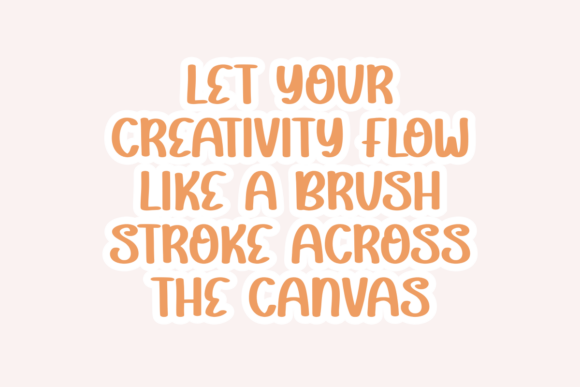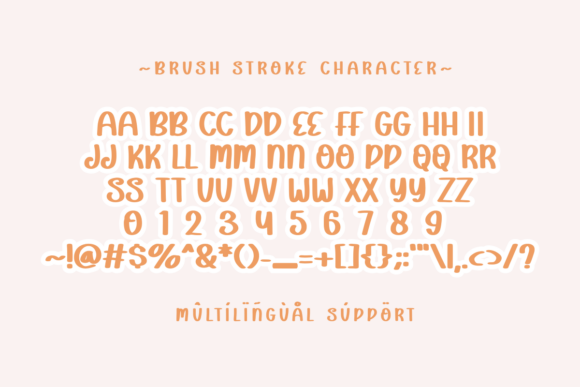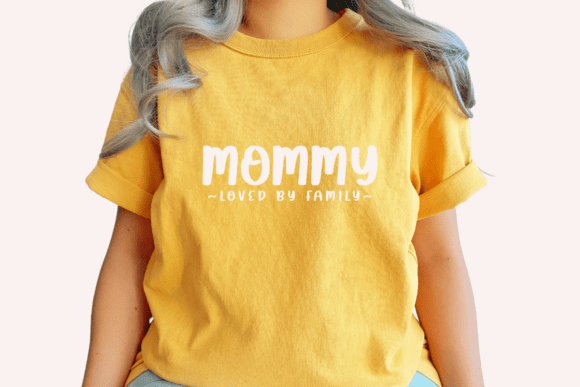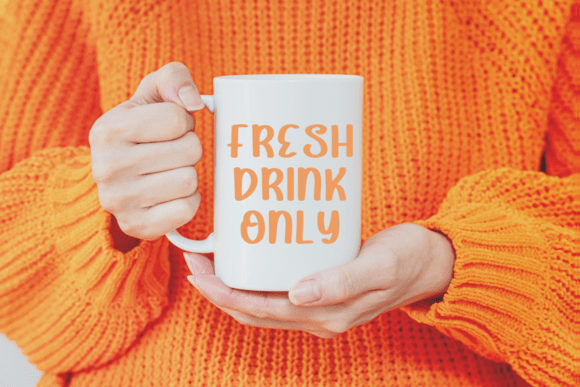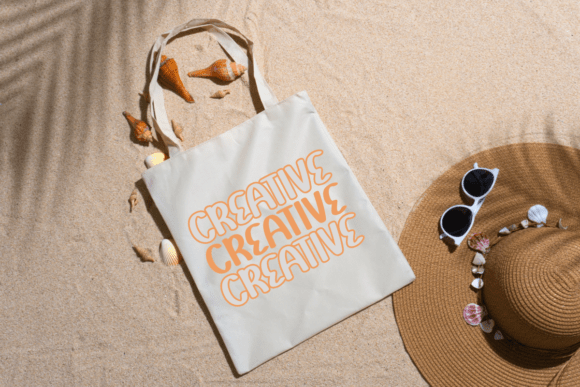
Introducing Brushstroke Font: The Perfect Blend of Whimsy and Elegance
Are you a designer or crafty enthusiast searching for a font that embodies the perfect balance of romance, playfulness, and sophistication? Look no further than Brushstroke Font! This charming handwriting font is designed to bring a touch of warmth and personality to your creative projects. With its smooth curves, clean lines, and hand-drawn feel, Brushstroke Font is ideal for a wide range of applications, from wedding invitations and heartfelt branding to elegant social media graphics and romantic designs.
The Characteristics of Brushstroke Font
So, what makes Brushstroke Font so unique? Here are just a few of its standout features:
- Smooth Curves: Brushstroke Font boasts smooth, flowing curves that give it a distinctly hand-drawn feel. This characteristic makes it perfect for creating elegant, sophisticated designs that still feel approachable and personal.
- Clean yet Whimsical: Despite its refined appearance, Brushstroke Font has a playful, whimsical vibe that’s hard to resist. This balance of modernity and playfulness makes it an excellent choice for designers and crafters looking to add a touch of personality to their work.
- Handwritten Style: The hand-drawn nature of Brushstroke Font gives it a unique, human touch that’s perfect for creating romantic, heartfelt designs. Whether you’re working on a wedding invitation or a branding project, this font is sure to bring a sense of warmth and authenticity to your work.
Perfect Applications for Brushstroke Font
So, what types of projects are best suited to Brushstroke Font? Here are a few ideas to get you started:
- Wedding Invitations: With its elegant, refined appearance, Brushstroke Font is an excellent choice for wedding invitations, save-the-dates, and other wedding-related stationery.
- Heartfelt Branding: If you’re working on a branding project that requires a touch of warmth and personality, Brushstroke Font is an excellent choice. Its hand-drawn feel and smooth curves make it perfect for creating a brand identity that’s both modern and approachable.
- Elegant Social Media Graphics: Whether you’re creating social media graphics for a personal project or a client’s, Brushstroke Font is an excellent choice. Its clean lines and refined appearance make it perfect for creating graphics that are both elegant and engaging.
- Romantic Designs: From romantic quotes and poems to love letters and Valentine’s Day cards, Brushstroke Font is the perfect choice for any design project that requires a touch of whimsy and romance.
Why Designers and Crafters Love Brushstroke Font
So, why have designers and crafters fallen in love with Brushstroke Font? Here are just a few reasons:
- Versatility: Brushstroke Font is incredibly versatile, making it suitable for a wide range of design projects and applications.
- Ease of Use: With its clean lines and smooth curves, Brushstroke Font is easy to read and work with, even for those with limited design experience.
- Unique Style: In a world of generic, overused fonts, Brushstroke Font stands out for its unique, hand-drawn style that’s sure to make your designs stand out.
Tips for Using Brushstroke Font
Ready to start working with Brushstroke Font? Here are a few tips to keep in mind:
- Pair it with Bold Fonts: For maximum impact, try pairing Brushstroke Font with bold, sans-serif fonts to create a striking contrast.
- Experiment with Colors: Brushstroke Font looks beautiful in a range of colors, from soft pastels to rich jewel tones. Don’t be afraid to experiment and find the perfect hue for your design.
- Add Decorative Elements: To take your design to the next level, consider adding decorative elements, such as ribbons, flowers, or other illustrations, to complement Brushstroke Font.
In conclusion, Brushstroke Font is a charming, versatile font that’s perfect for designers and crafters looking to add a touch of romance, whimsy, and elegance to their creative projects. With its smooth curves, clean lines, and hand-drawn feel, this font is sure to bring a sense of warmth and personality to your work. So why wait? Download Brushstroke Font today and start creating beautiful, one-of-a-kind designs that will leave a lasting impression!